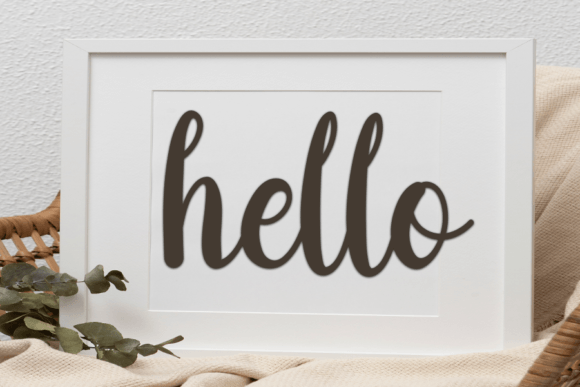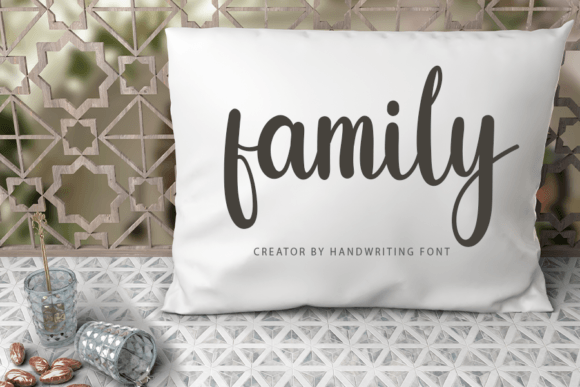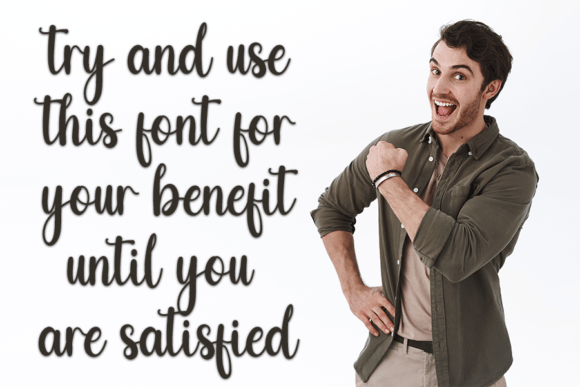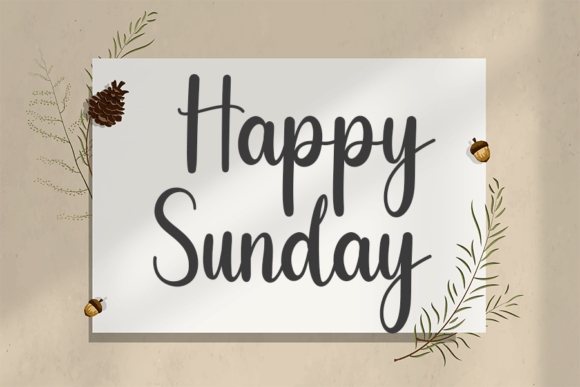
Beautiful Font Download – Elegant Handwritten Script
The Beautiful Font download is a handwritten typeface that blends neat design with timeless elegance. With graceful strokes and smooth curves, this font captures the charm of handwriting while maintaining excellent readability. Whether for professional branding or personal projects, Beautiful adds a unique touch that elevates your designs.
A Neat and Elegant Handwritten Style
The Beautiful Font download features balanced, flowing strokes that provide sophistication without losing simplicity. Each letter is carefully shaped to deliver harmony, giving your text a personal yet polished look. Its refined style makes it suitable for projects that require warmth and elegance.
Perfect for Logos and Branding
Typography defines a brand’s identity, and the Beautiful Font download is a perfect choice for creating eye-catching logos and branding kits. Its handwritten flow adds authenticity, making it especially effective in industries like fashion, beauty, lifestyle, and creative arts. With Beautiful, your brand will stand out with charm and confidence.
Great for Invitations and Creative Projects
The Beautiful Font download adapts beautifully to greeting cards, invitations, posters, and inspirational quotes. Its natural handwritten look conveys personality and friendliness, making it ideal for both formal events and casual DIY projects. Whether you’re designing wedding stationery or holiday cards, this font ensures your creations feel timeless.
Timeless Style with Distinct Character
Unlike fonts that may feel outdated, the Beautiful Font download maintains a timeless appeal. Its neat strokes and distinct handwritten character ensure your designs stay relevant across changing design trends. This makes it a reliable choice for both print and digital applications.
Why Choose Beautiful Font?
Among the many handwritten fonts available, the BeautifulFont download stands out with its neat structure, stylish elegance, and versatile usability. It works just as well for personal crafts as it does for high-end branding, giving every project a unique handwritten touch.
Add Elegance to Your Work
Typography is more than text—it’s the emotion your audience feels. The BeautifulFont download allows you to add elegance, warmth, and timeless beauty to your designs. Whether for logos, quotes, or invitations, this font ensures your projects shine with sophistication.